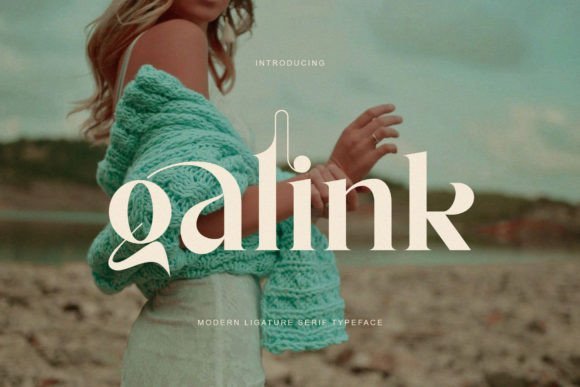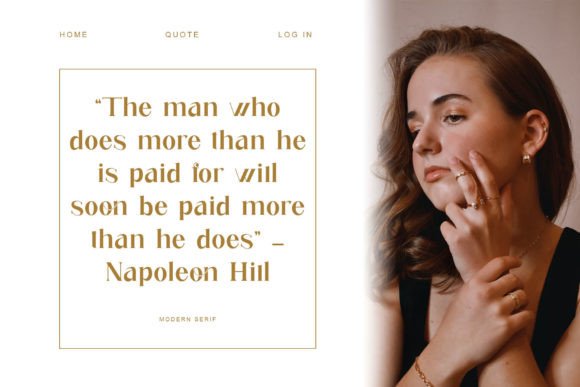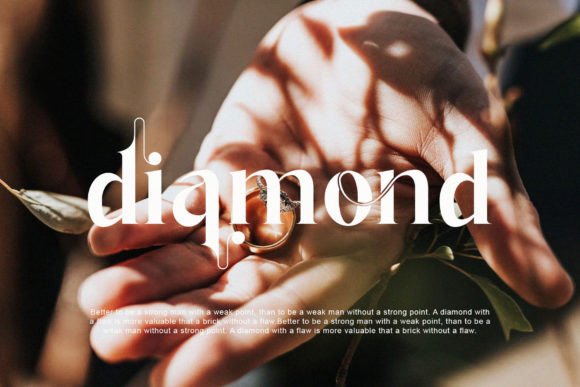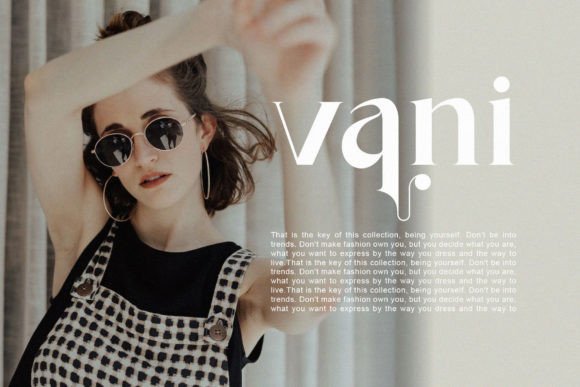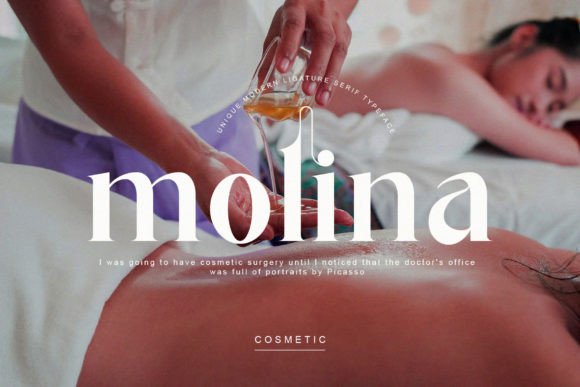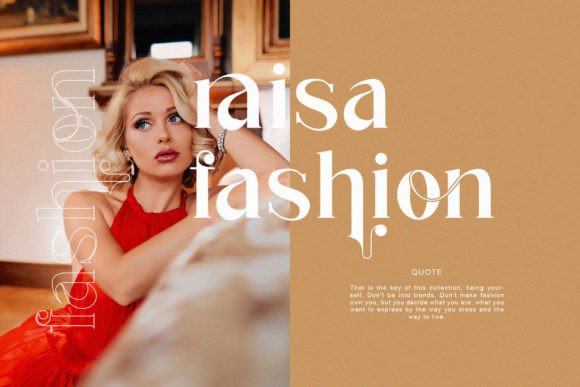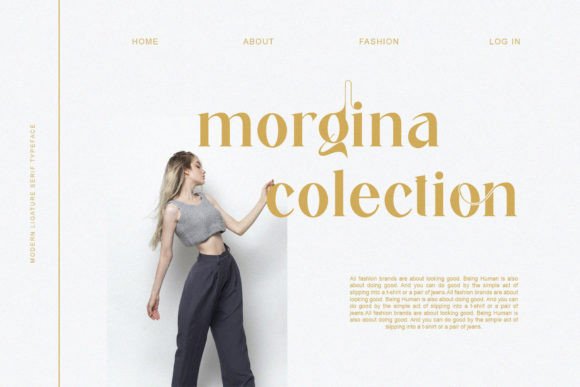
Adding a Touch of Elegance to Your Designs
Have you ever stared at a blank canvas, struggling to find the perfect combination of style and sophistication? For designers, this is a common dilemma – the need to create something visually stunning without sacrificing the essence of the message. It’s in these moments of creative uncertainty that the right font can make all the difference.
Enter the Galink Font, a beautiful and refined serif typeface that seamlessly blends modernity with a touch of nostalgia. Designed to elevate your designs to the next level, the Galink Font is the perfect solution for those seeking a sophisticated and stylish look. With its versatility in use, whether for logos, magazines, or social media, this font is a valuable asset for any designer looking to add a touch of elegance to their work.
Galink Font Key Features
- Unique Characteristic: The Galink Font features a unique blend of modern and classic design elements, resulting in a distinctive and recognizable visual identity.
Galink Font Review
Overall, I’m impressed with the Galink Font. It has a unique blend of modern and minimalist styles that can work well for various design projects. ✨ The font is clean, easy to read, and has a touch of sophistication that can elevate the look of any digital product or print material.
Here are some of the things that I like about the Galink Font:
- ✨ High legibility: The font is clear and easy to read, even at smaller font sizes.
- ✨ Versatility: Galink Font can be used for a wide range of projects, from digital products to print materials.
- ✨ Unique style: The font’s blend of modern and minimalist styles makes it stand out from more common fonts.
However, there are some limitations to the Galink Font:
- ⚠️ Limited language support: The font may not support all languages, which can be a limitation for projects that require multilingual support.
- ⚠️ Limited character set: The font may not include all the characters or glyphs that you need for your project.
Overall, I think the Galink Font is a great addition to any designer’s toolkit. While it may have some limitations, its unique style and high legibility make it a great choice for many projects.
The Galink Font is ideal for:
- Creating modern and elegant text effects in graphics design.
- Adding a touch of sophistication to digital and print materials.
- Designing logos, branding materials, and marketing collateral.
Tips for Getting the Most Out of Galink Font
Experiment with different font sizes, colors, and styles to achieve unique and eye-catching text effects.
Combine the Galink Font with other design elements,
Montserrat is a modern sans-serif font that is perfect for digital products, websites, and mobile apps. It is clean, simple, and highly legible. Montserrat is great for body text and headings in a variety of contexts.
Montserrat compares to Galink Font as it has a similar modern feel, but with a more geometric and minimalist approach. While Galink Font is more decorative, Montserrat is more functional and versatile.
Lato is a sans-serif font that is highly readable and versatile. It is great for use in a variety of contexts, from body text to headings and even logos. Lato is a great choice for designers who want a clean and modern font that is also highly customizable.
Q: What is the recommended font size and line height for the Galink Font?
The recommended font size for the Galink Font is between 12 and 14 points, while the recommended line height is between 1.2 and 1.5 times the font size. These settings will provide optimal readability and balance for the font in various design contexts.